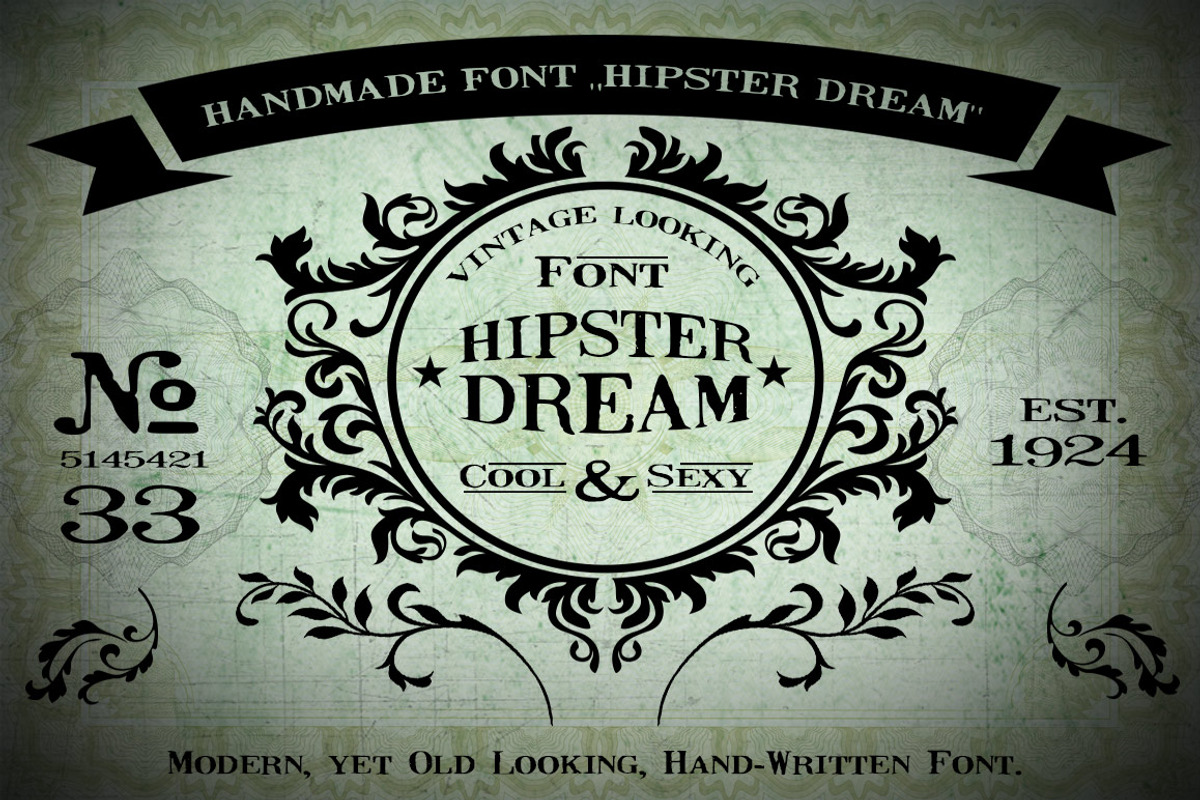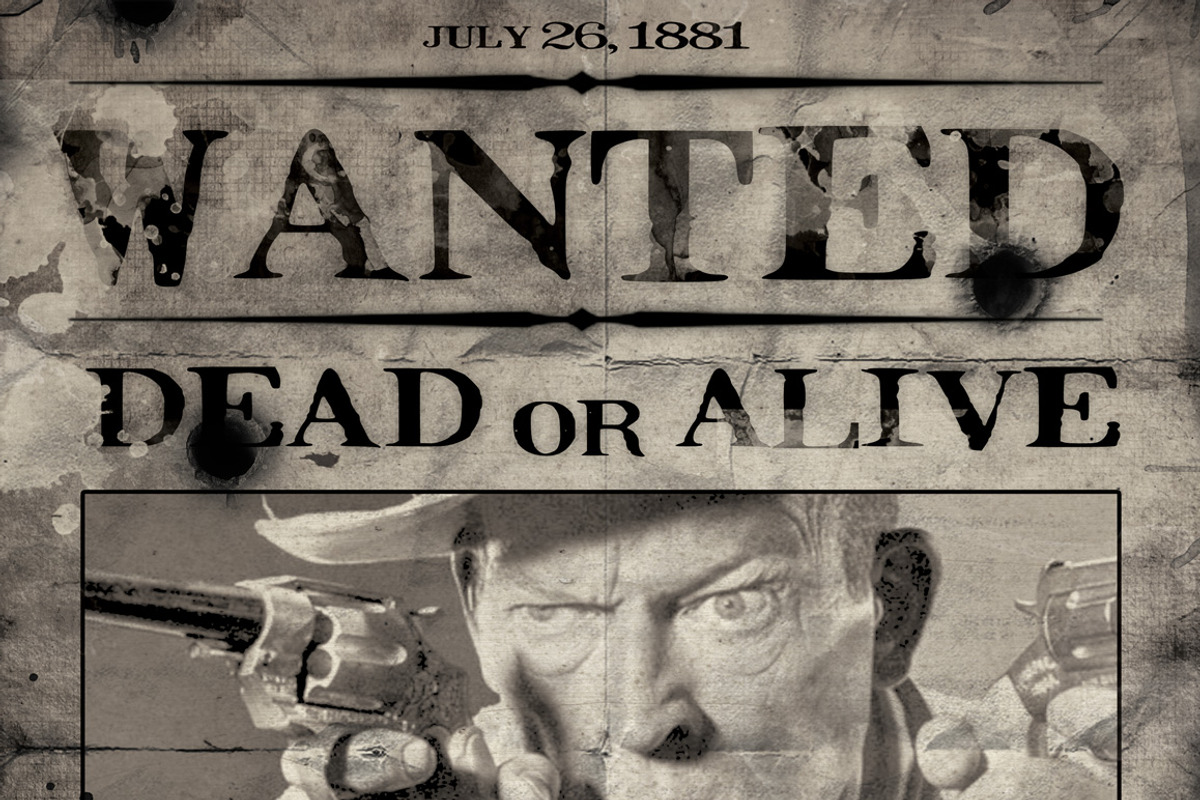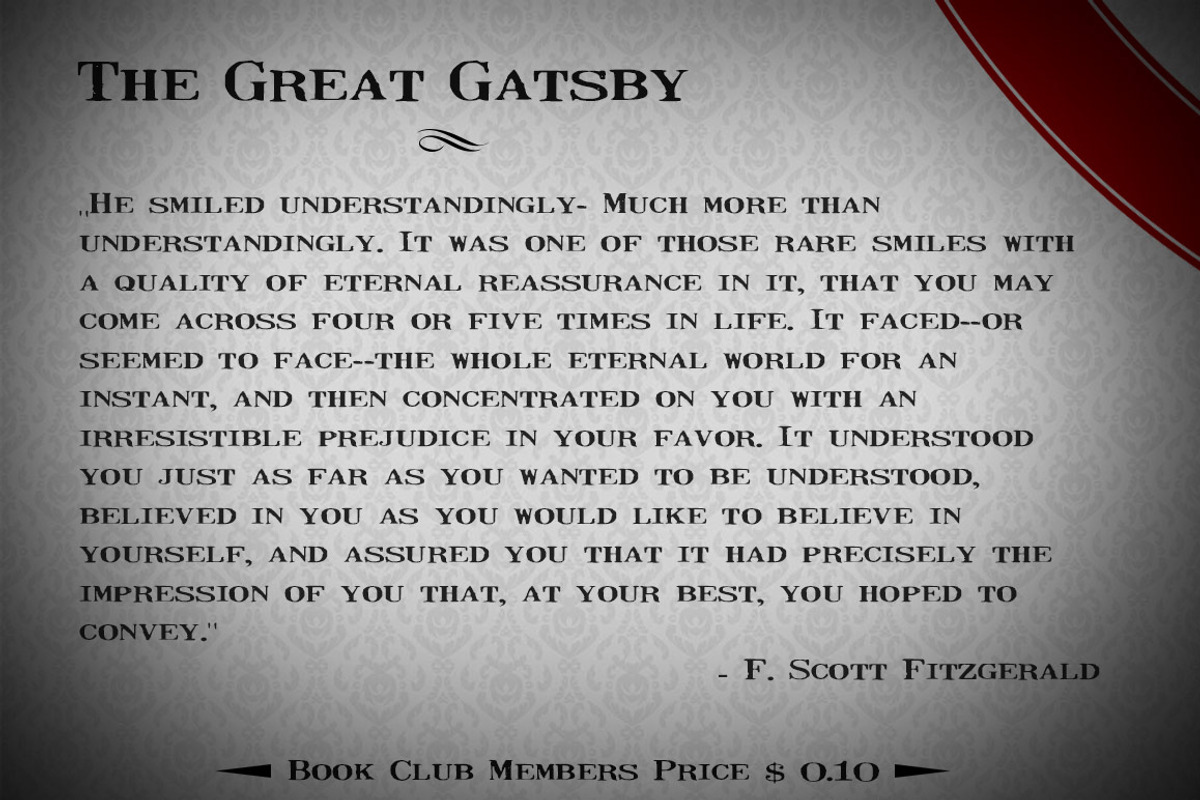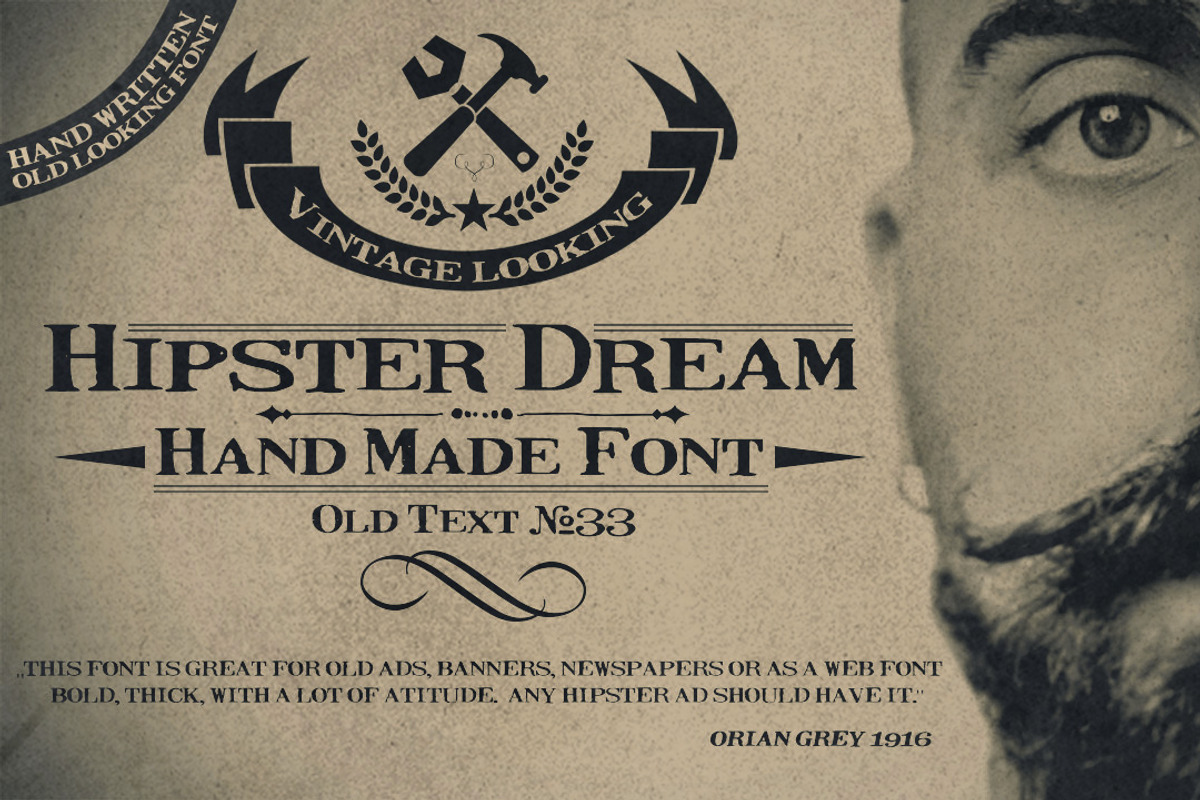
Handmade Font 'Hipster Dream'
Handmade Font 'Hipster Dream' by the little wonder shop is a font selected for branding, posters, packaging, typography.
Handmade Font 'Hipster Dream' by the little wonder shop fits naturally into Branding, posters, packaging, typography.